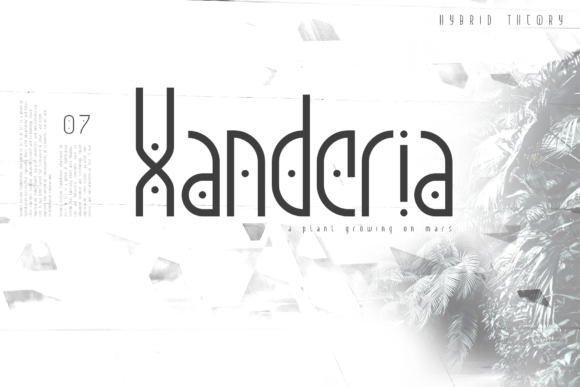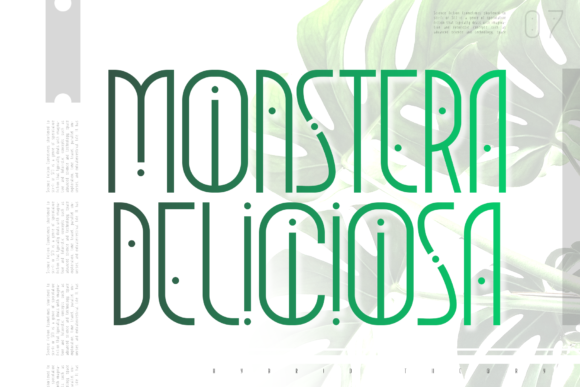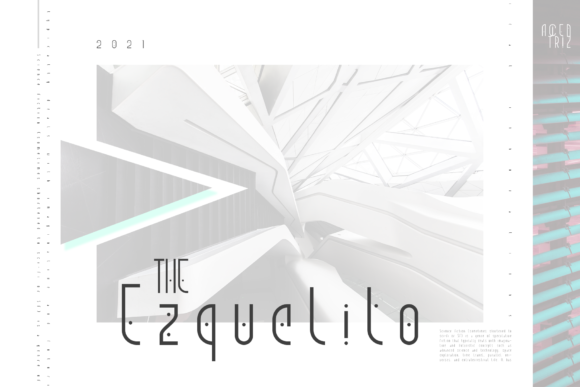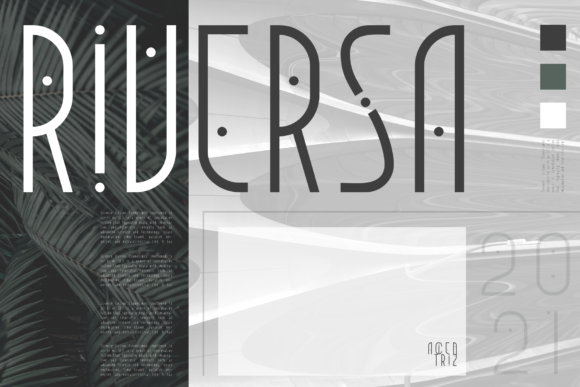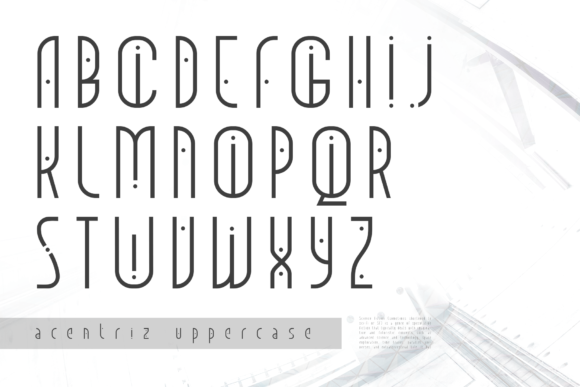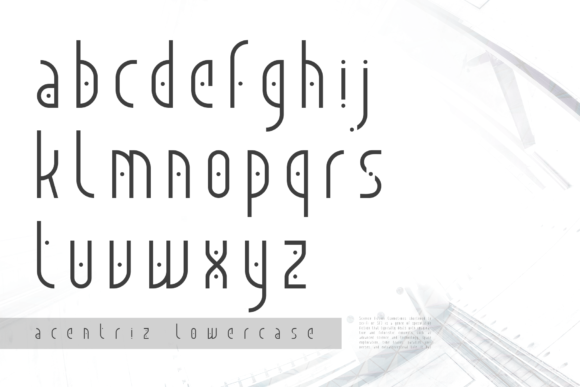
Acentriz Font: Elevate Your Designs with a Cool and Modern Display Font
In the world of typography, a font can make or break a design. Acentriz, a cool and modern display font, is here to revolutionize your creative projects. With its simplicity and strong visual effect, Acentriz is the perfect addition to your font collection. In this article, we’ll dive into the features, benefits, and uses of Acentriz, and explore how it can instantly elevate your designs.
What is Acentriz Font?
Acentriz is a modern display font designed to make a statement. Its clean and simple lines make it versatile, while its strong visual effect ensures it grabs attention. Acentriz is perfect for designers and crafters looking to add a touch of sophistication and elegance to their projects.
Key Features of Acentriz Font
- Simple yet Impactful: Acentriz’s minimalist design ensures it works well in various contexts, from logos and titles to posters and social media graphics.
- Cool and Modern: Acentriz’s sleek lines and curves give it a contemporary feel that’s perfect for designs that need to feel current and fresh.
- Endless Variations: With Acentriz, you can experiment with different styles, sizes, and colors to create unique and eye-catching designs.
- High-Quality: Acentriz is designed with high-quality lines and curves, ensuring it looks great in both digital and print formats.
Benefits of Using Acentriz Font
So, why choose Acentriz for your designs? Here are some benefits that make Acentriz a top choice:
- Instant Visual Impact: Acentriz’s strong visual effect ensures your designs stand out from the crowd.
- Versatility: Acentriz works well in various design contexts, from branding and advertising to packaging and web design.
- Easy to Read: Despite its modern and sleek design, Acentriz remains highly legible, making it perfect for titles, headings, and short paragraphs.
- Customizable: With Acentriz, you can experiment with different styles, sizes, and colors to create a unique look that suits your brand or project.
Uses of Acentriz Font
Acentriz is a versatile font that can be used in a variety of design projects, including:
- Branding and Logo Design: Acentriz’s strong visual effect makes it perfect for logos and brand identities.
- Posters and Flyers: Acentriz’s bold and modern design ensures your posters and flyers grab attention.
- Social Media Graphics: Acentriz works well in social media graphics, from Facebook posts to Instagram stories.
- Web Design: Acentriz can be used in web design to create visually appealing headings, titles, and buttons.
- Packaging Design: Acentriz’s sleek and modern design makes it perfect for packaging design, from labels to product packaging.
Tips for Using Acentriz Font
To get the most out of Acentriz, here are some tips to keep in mind:
- Experiment with Sizes: Acentriz works well in various sizes, from large titles to smaller text.
- Play with Colors: Acentriz looks great in different colors, so don’t be afraid to experiment and find the perfect hue for your design.
- Mix and Match: Acentriz can be paired with other fonts to create a unique and visually appealing design.
- Use it Sparingly: While Acentriz is a beautiful font, it’s best used sparingly to avoid overwhelming your design.
Acentriz is a cool and modern display font that’s perfect for designers and crafters looking to elevate their designs. With its simplicity, strong visual effect, and endless variations, Acentriz is sure to become a staple in your font collection. Whether you’re working on a branding project, poster design, or social media graphics, Acentriz is the perfect choice. So, have fun with this beautiful font and explore its endless possibilities!